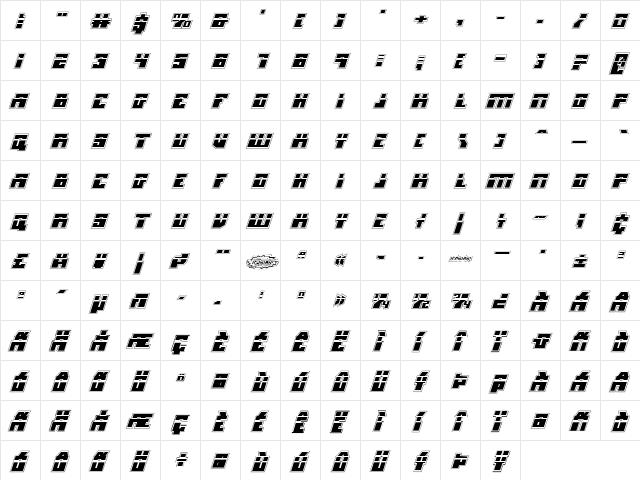
Micronian Laser Academy Italic Regular
Design Context for Micronian Laser Academy Italic Typeface
Micronian Laser Academy Italic is a composed and adaptable typeface that performs quietly and consistently across a wide range of design contexts. The dynamic lean of this cut emphasises speed and emphasis in any layout.
Pro Tip: Try Micronian Laser Academy Italic for annotation and caption copy alongside an upright companion — the contrast in angle creates a dynamic but ordered typographic system.